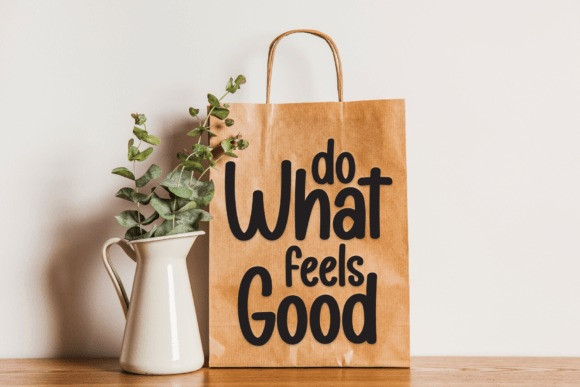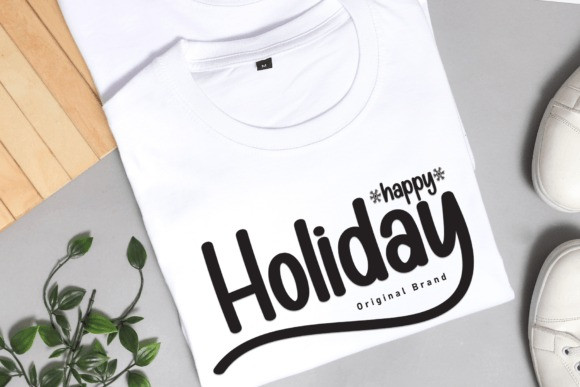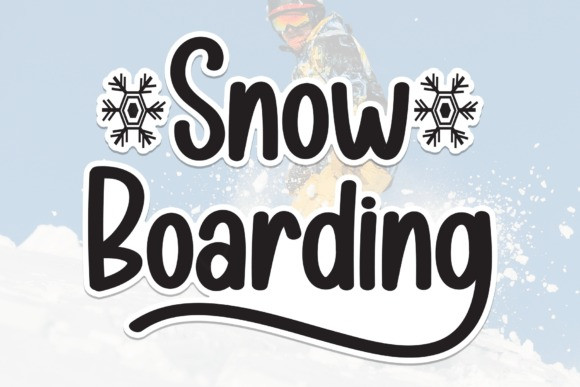
Snow Boarding Font
Snow Boarding Font is a whimsical handwritten font that adds a touch of charm to your text. With playful strokes and a hint of winter magic, each character is crafted with care. The font comes adorned with a delicate snowflake, turning your words into a frosty masterpiece. Embrace the cozy and festive vibe with Snow Boarding for a delightful touch to your designs.